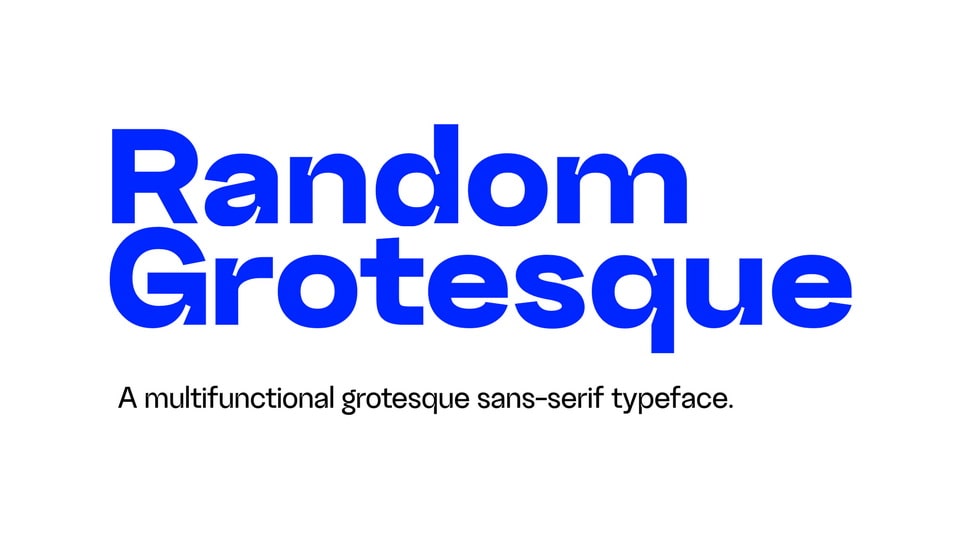
Download Random Grotesque font, a multifunctional grotesque sans serif typeface. Random Grotesque was originally designed to capture the feel of Helvetica but still maintain its unique personality.